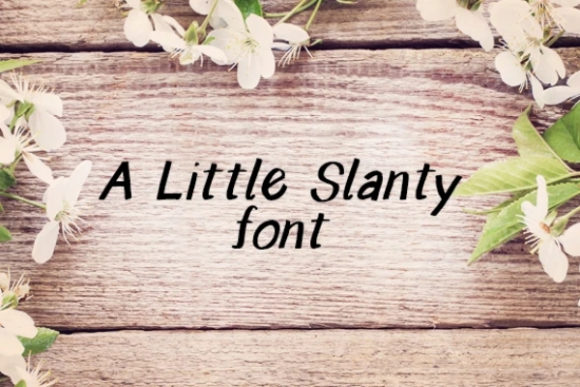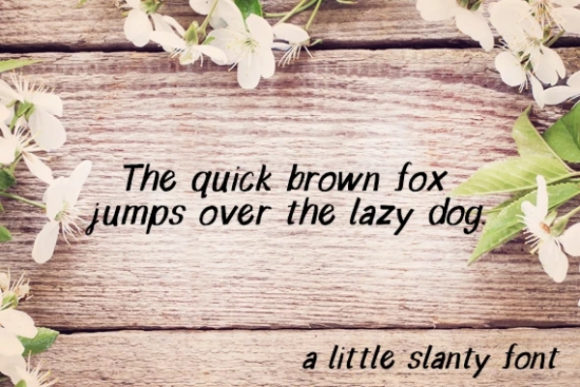
A Little Slanty Font
About A Little Slanty Font
A Little Slanty is inspired by classic typography and brings its own unique style to any design project. This fantastic handwritten font is best suited for headlines of all sizes, as well
as for blocks of text. Whether it’s for web, print, moving images or anything else – A Little Slanty will look spectacular.